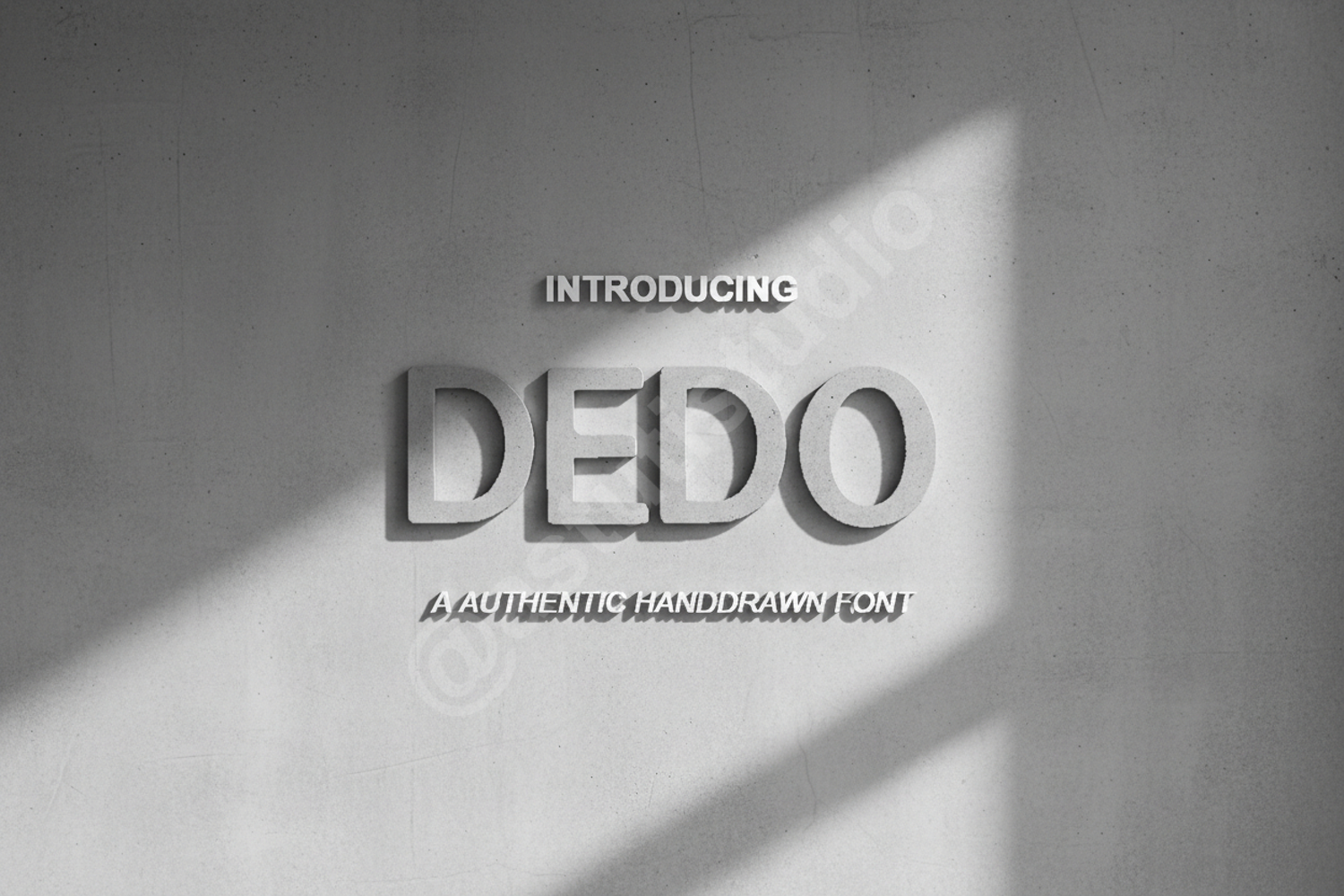
Dedo - Sophisticated Modern Sans Serif
Dedo
Elevate your design projects with Dedo, a premium sans serif font that exudes sophistication and modern charm. Dedo was crafted with precision to offer a clean, balanced aesthetic that works seamlessly across digital and print mediums. Whether you are building a high-end brand identity or a minimalist website, Dedo provides the versatility and professional polish your work deserves.
- Comprehensive character set including uppercase, lowercase, numbers, and punctuation
- Multilingual support for global accessibility